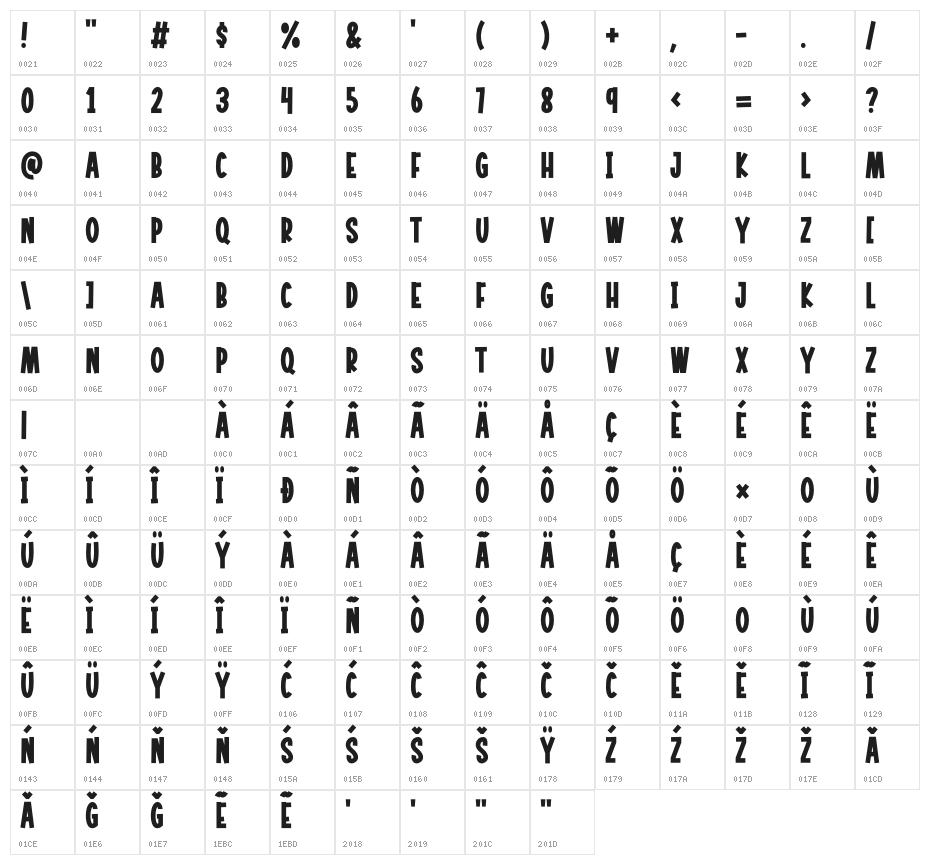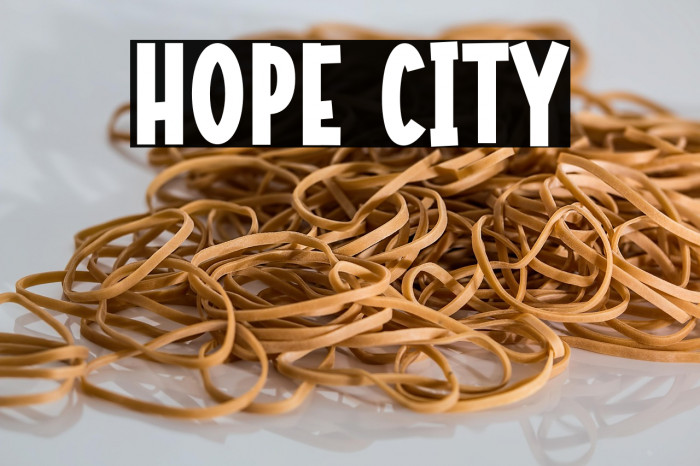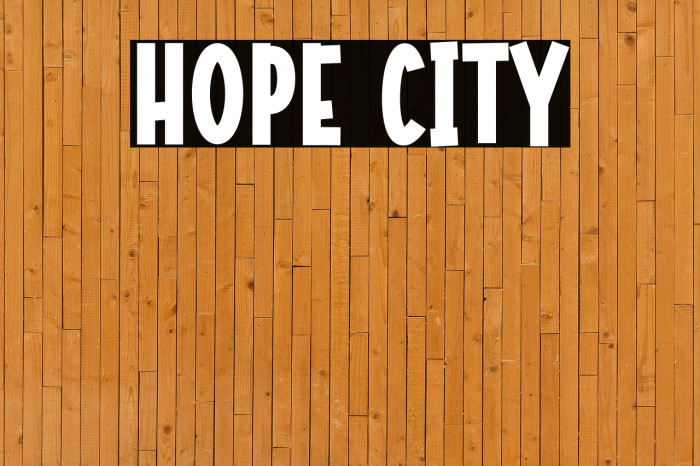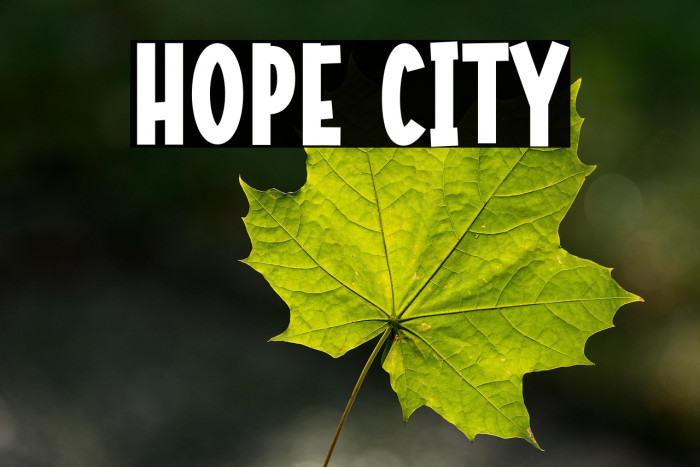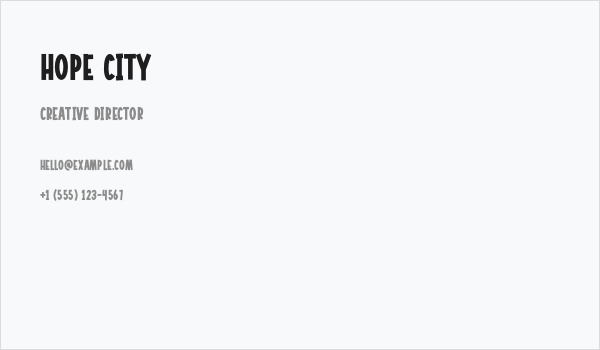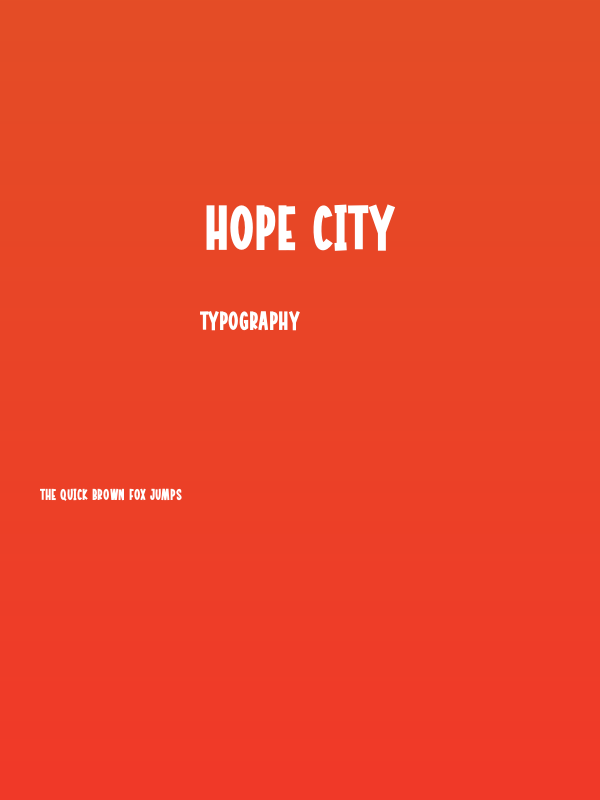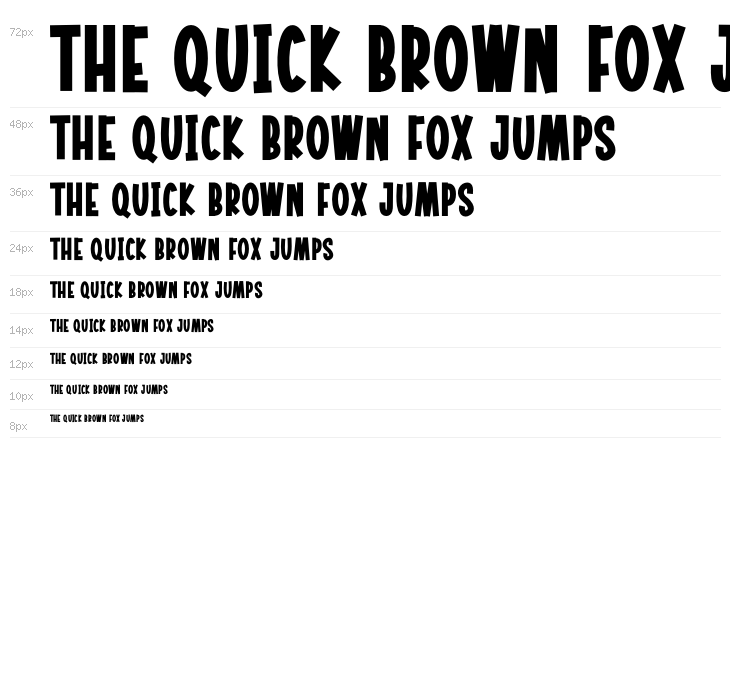
Hope City Font
Hope City Description
This bold, decorative font features thick, blocky letters with a playful and dynamic appearance. The uppercase letters are particularly striking, with a slightly condensed form that gives them a strong presence. The lowercase letters maintain the same boldness, ensuring consistency throughout the typeface. Numbers and special characters are designed to match the overall style, making them suitable for a variety of uses. The font's high contrast in stroke thickness adds to its eye-catching nature, making it ideal for attention-grabbing headlines or titles. Its unique style combines elements of both modern and vintage aesthetics, offering versatility in design applications.
| Proposed Projects | Perfect for posters, branding, advertising, and any project requiring a bold, attention-grabbing typeface. |